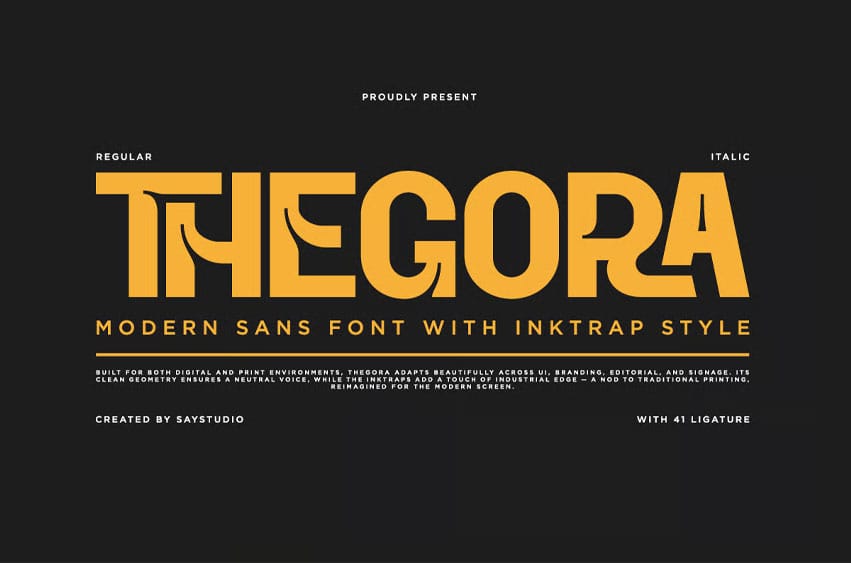
Thegora Font is a modern sans serif font that blends geometric precision with industrial inktrap flair. Designed for both digital and print use, Thegora adapts beautifully across branding, editorial layouts, and signage. Its clean lines and bold structure ensure a confident, modern tone — while subtle inktraps add character and depth, creating a distinctive visual identity.
- Stylish Ligature